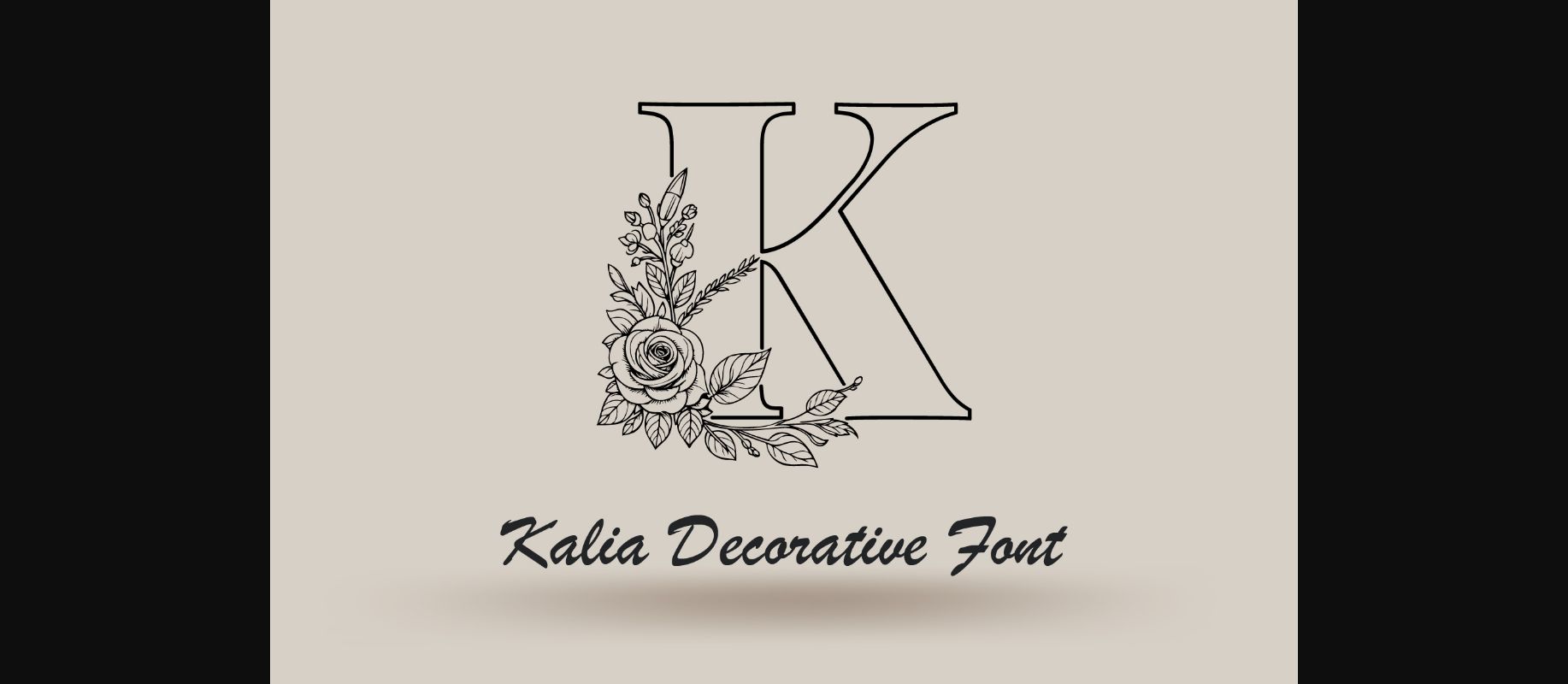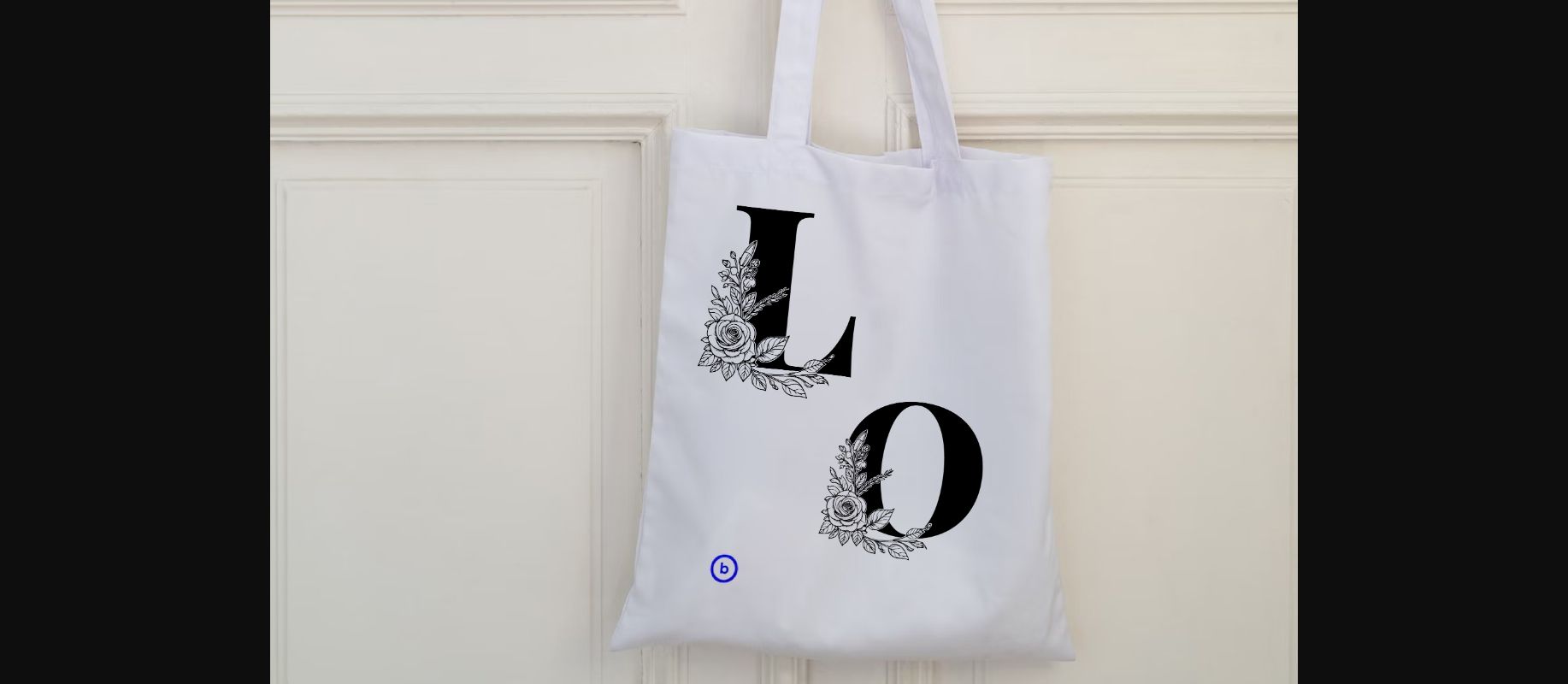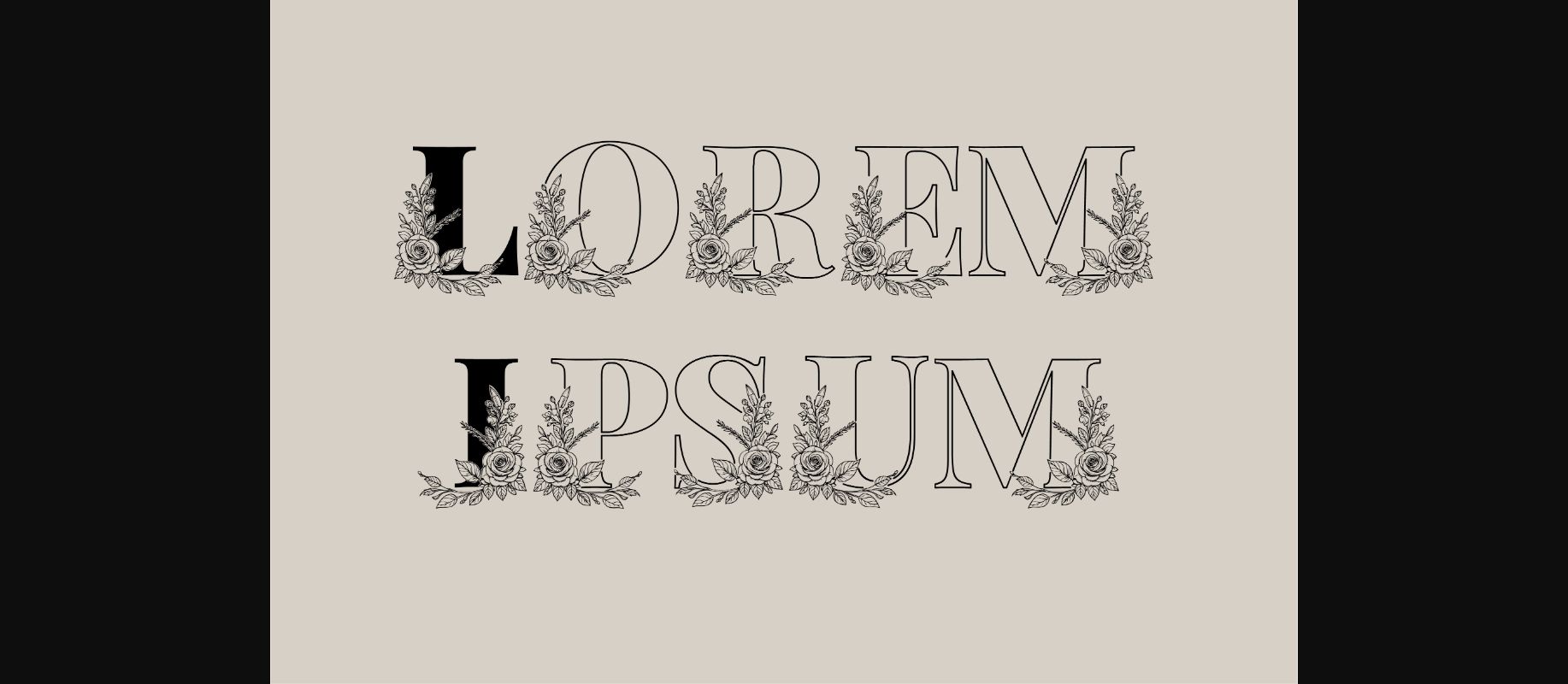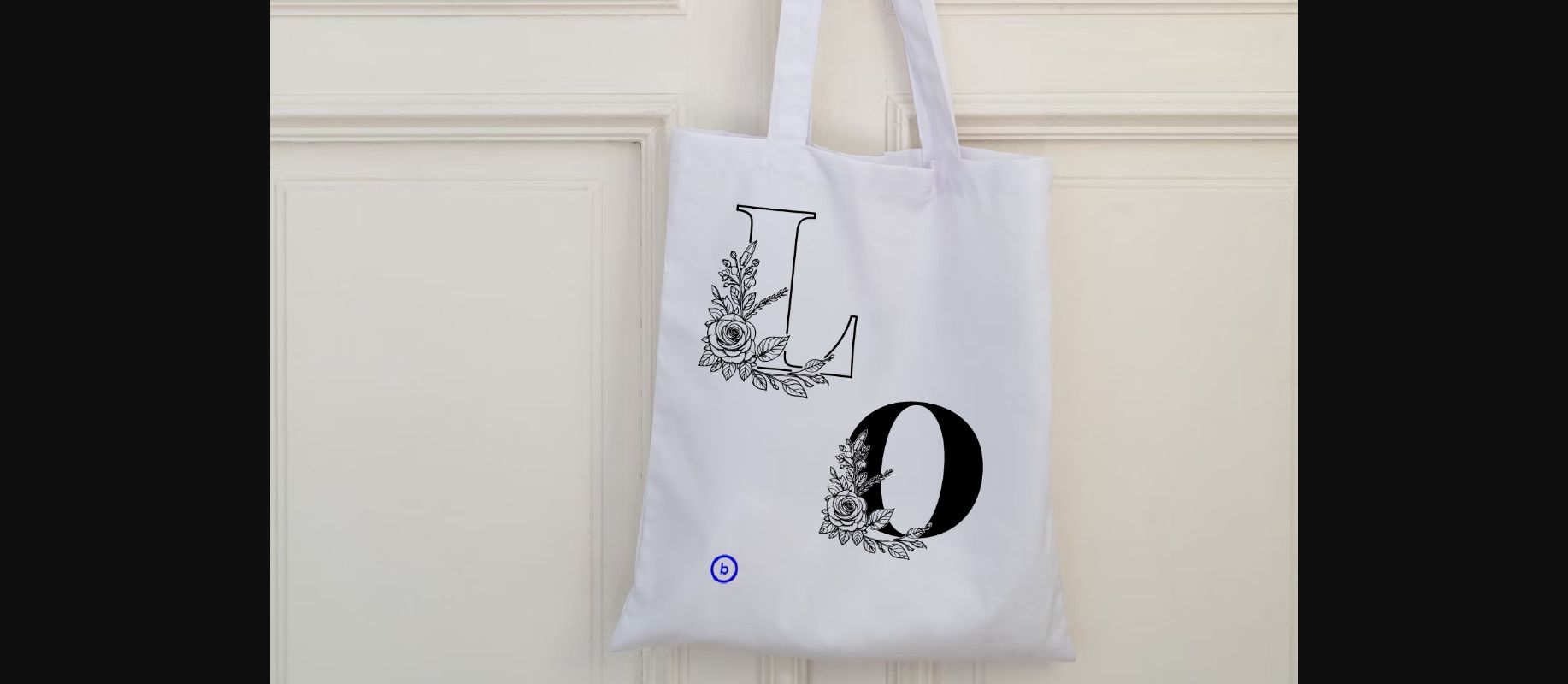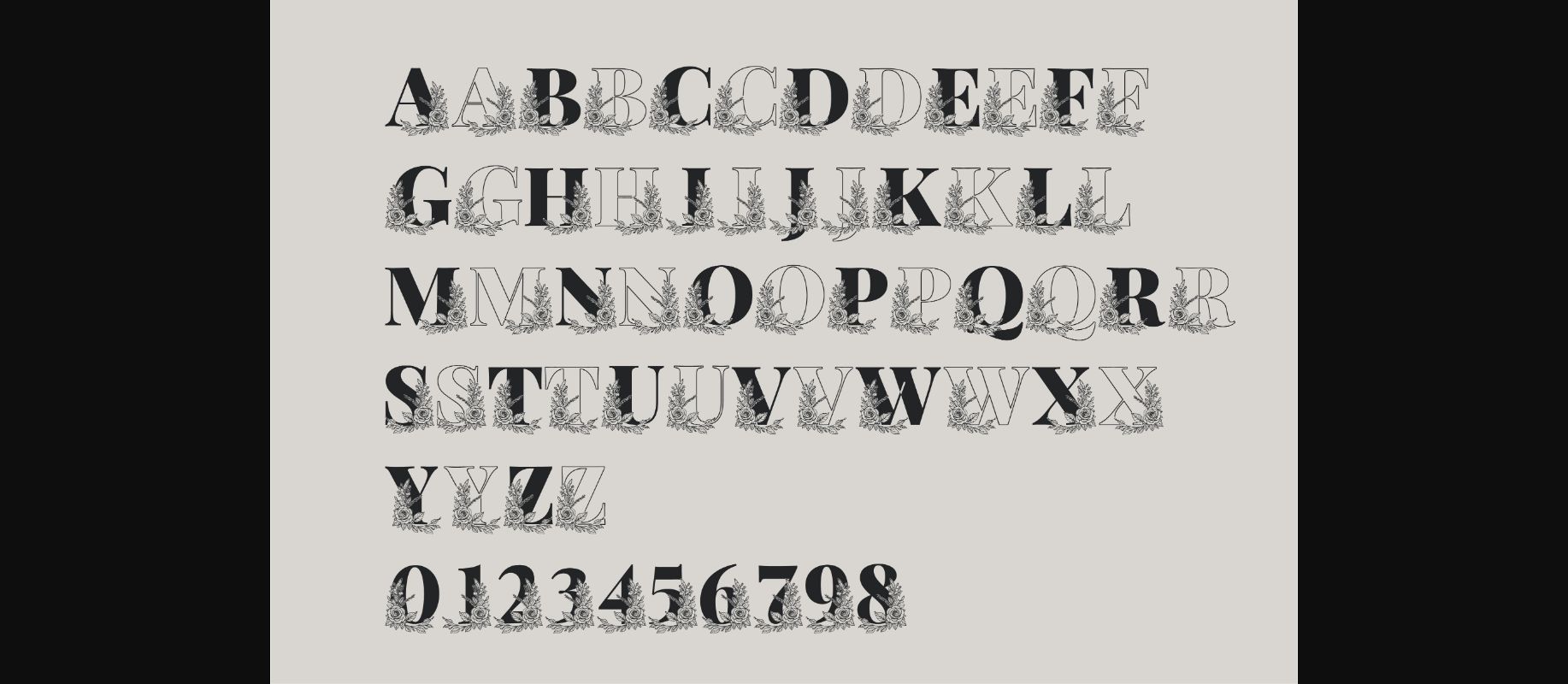
HomeDecorative FontsKalia Monogram Font Decorative Fonts Kalia Monogram Font FacebookXPinterestWhatsApp 1 of 8 ... Kalia Monogram Font Poster 2... Kalia Monogram Font Poster 3... Kalia Monogram Font Poster 4... Kalia Monogram Font Poster 5... Kalia Monogram Font Poster 6... Kalia Monogram Font Poster 7... Kalia Monogram Font Poster 8... About Kalia Monogram Font Kalia Monogram is a remarkably delicate and stylish decorative font. This font will be an incredible asset no matter the topic, and it will elevate any creation! DOWNLOAD NOW People also explored Zucchini Blossoms Font Heland Font Happy Sunday Font Mistorya Font Margarita Font Anniversary Font Beatrix Signature Font Little Rainbow Font The Paradise Font 314 0 TagsKalia Monogram Font Previous articleSummer Sweet FontNext articleBubble Font LEAVE A REPLY Cancel reply Comment: Please enter your comment! Name:* Please enter your name here Email:* You have entered an incorrect email address! Please enter your email address here Website: Save my name, email, and website in this browser for the next time I comment. Personal Use Free Party Pooper Personal Use Free Read more about this font Token No 721 Personal Use Free Read more about this font December Christmas Personal Use Free Read more about this font Hello Sarrah Personal Use Free Read more about this font BLOG Using Fonts in Digital Marketing: Tips to Strengthen Your Brand Identity In the realm of digital marketing, every visual element plays a crucial role in shaping a brand's identity, and fonts are no exception. The... Top 7 Google Fonts Alternatives for Faster and Privacy-Friendly Web Design (2025) Modern Sans-Serif Fonts That Brands Love in 2025 Free Fonts Risk: Why Free Fonts Can Be Dangerous for Designers